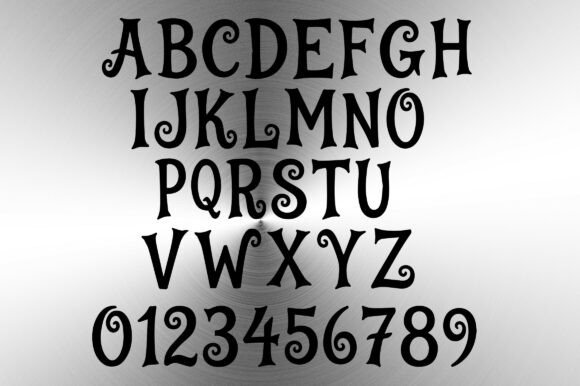
Introduction to Mooncurl Font
Mooncurl is a whimsical decorative display font with tall letterforms, soft curves, and elegant spiral details.
Its magical and slightly mysterious style makes it perfect for fantasy, spooky-cute, feminine, and creative designs .
Key Features of Mooncurl Font